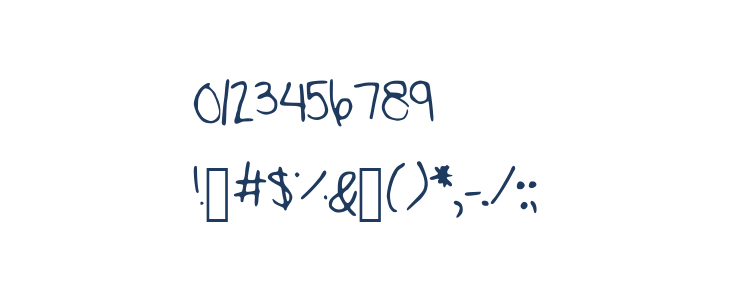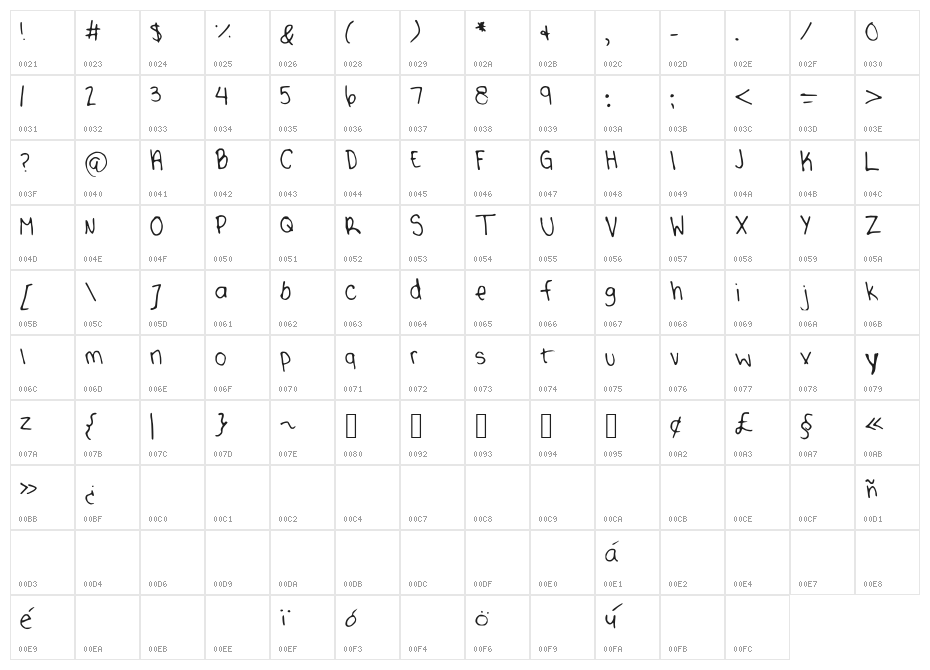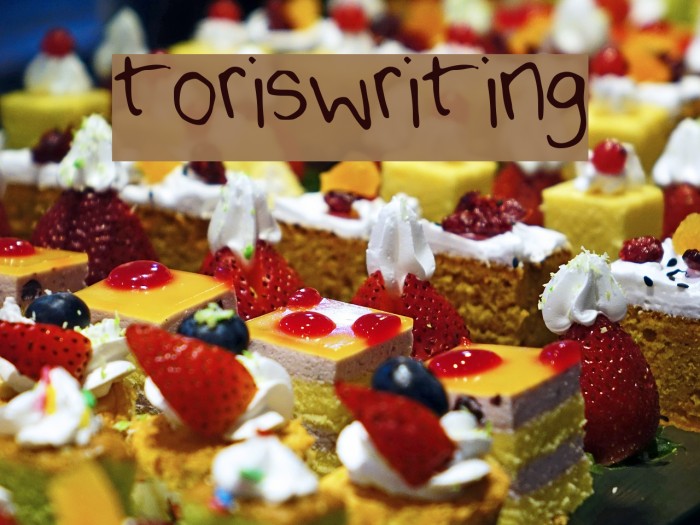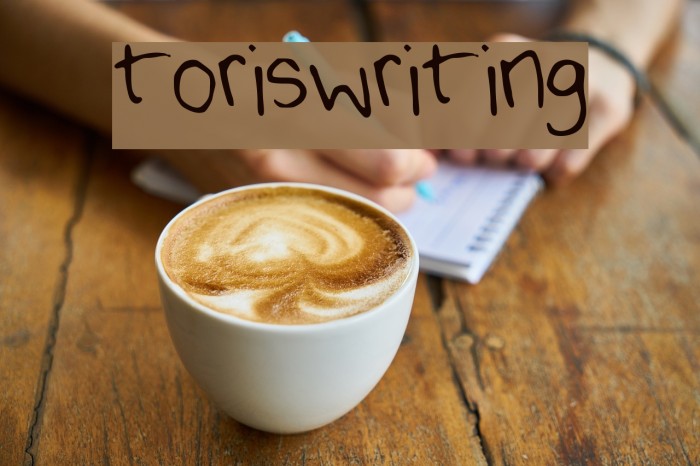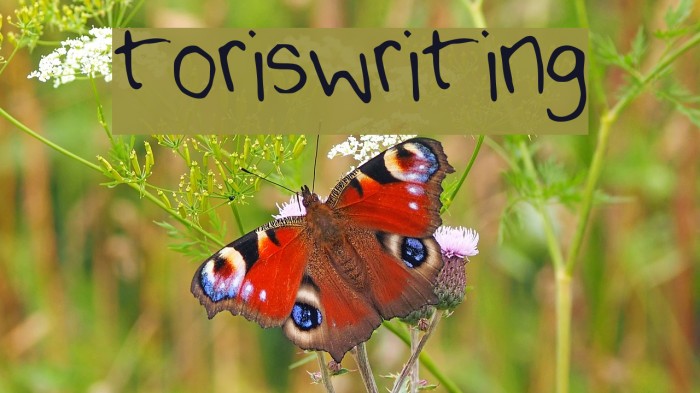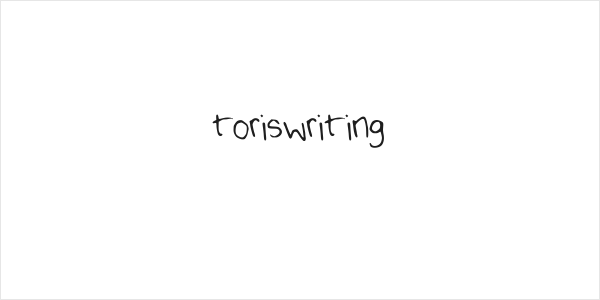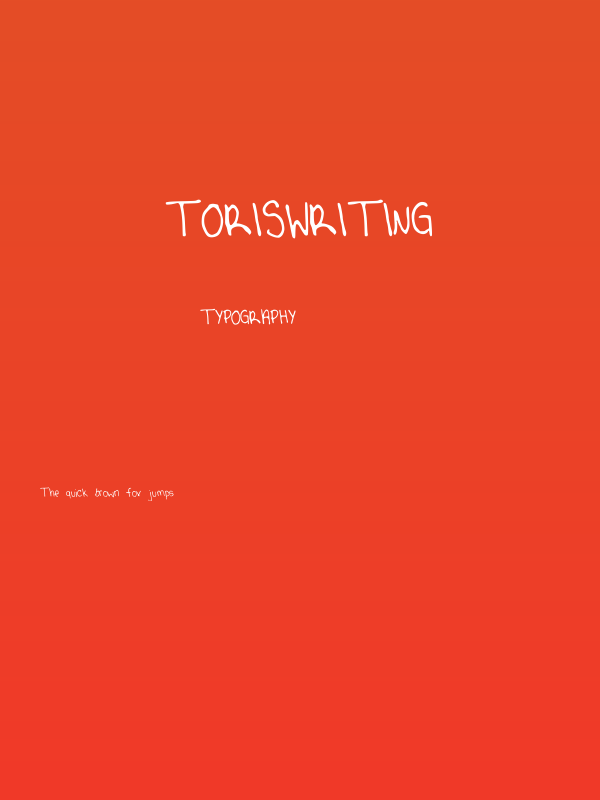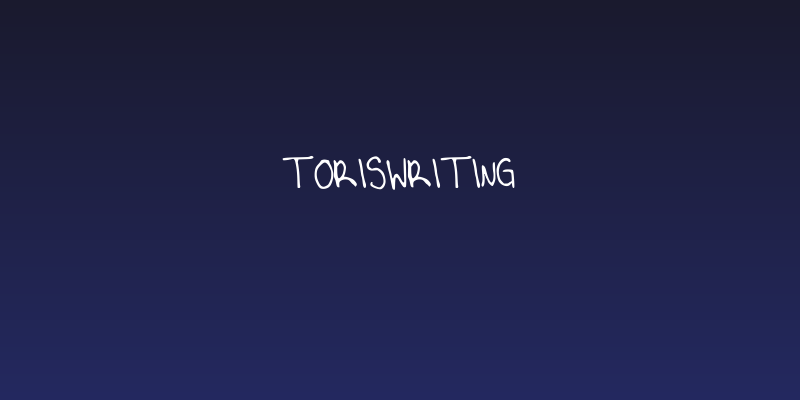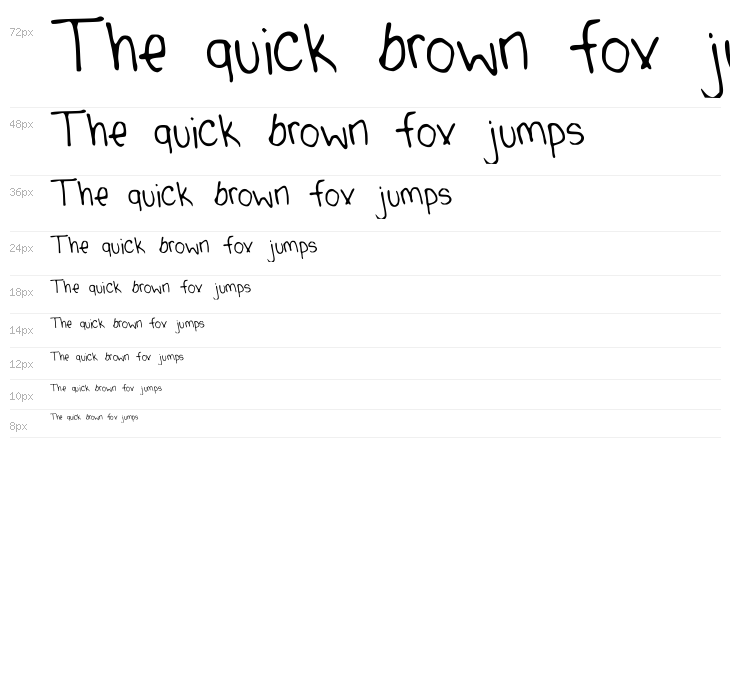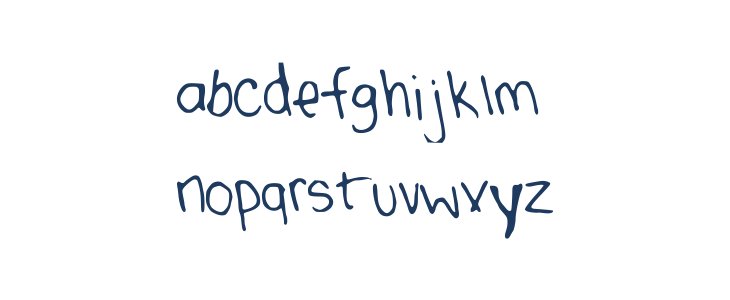
toriswriting Font
toriswriting Description
This font exudes a playful and casual handwritten style, characterized by its irregular and organic letterforms. The strokes are uneven, giving it a personal and informal touch, reminiscent of a child's handwriting or a casual note. The uppercase and lowercase letters maintain a consistent style, with a slight tilt and varying stroke widths that add to its charm. The numerals and special characters follow the same whimsical design, making it versatile for creative projects. Its unique personality makes it stand out, perfect for adding a human touch to any design.